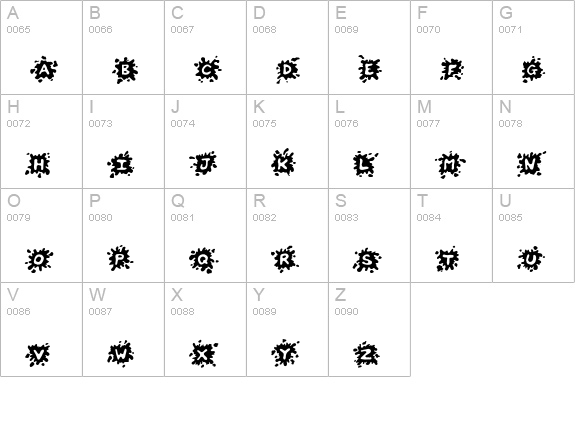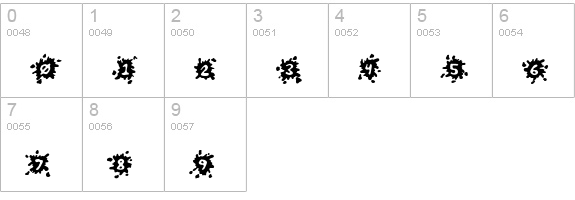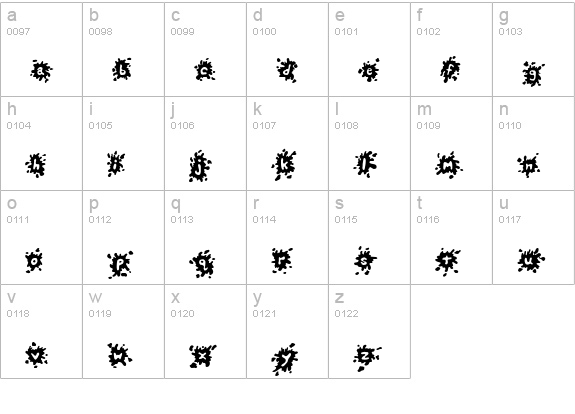
Splats Font Details
Introducing Splats Font, a captivating typeface that embodies creativity and playfulness. With its unique and eye-catching design, this font is sure to leave a lasting impression on any project it adorns. Splats Font is the perfect choice for those seeking to add a touch of whimsy and individuality to their designs. What sets Splats Font apart is not only its distinctive style but also its versatility. Whether you're designing a logo, creating a poster, or crafting a social media graphic, this font can effortlessly adapt to any context, making your message stand out in a crowd. One of the most exciting aspects of Splats Font is that it is completely free! Yes, you read that right - this incredible font is freely available to download at FontsMarket.com. Now, you can bring your creative visions to life without breaking the bank. The playful and energetic nature of Splats Font is evident in every letterform. Each character is meticulously crafted to resemble a vibrant splash of paint, adding a touch of dynamism and vibrancy to your designs. Whether you choose to use it in bold headlines or as an accent in body text, Splats Font will undoubtedly inject a sense of fun and excitement into your project. But don't let its playful appearance fool you - Splats Font is also highly legible and easy to read. The careful balance between the irregular splatters and the clear letterforms ensures that your message is conveyed effectively, even at smaller sizes. So why wait? Download Splats Font now from FontsMarket.com and unlock a world of creative possibilities. Whether you're a graphic designer, an artist, or simply someone looking to add a touch of whimsy to your everyday communications, Splats Font is the perfect choice. Get ready to make a bold statement and let your creativity splatter across the page with this fantastic free font.